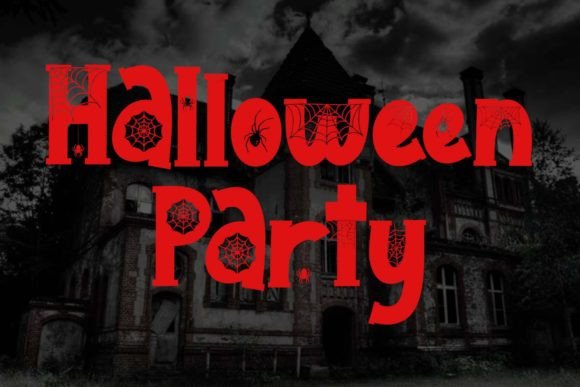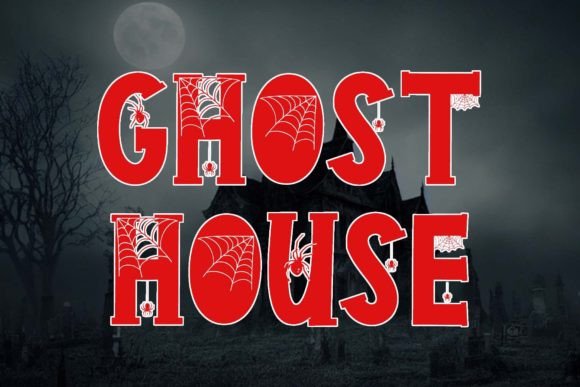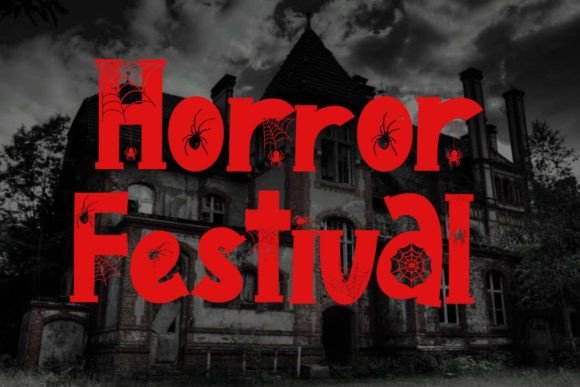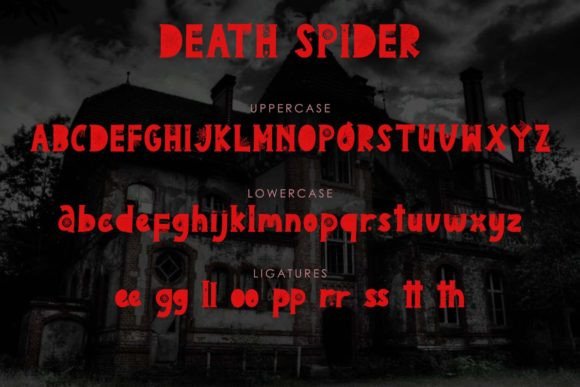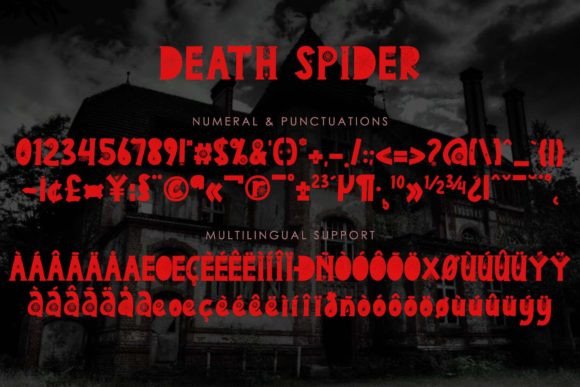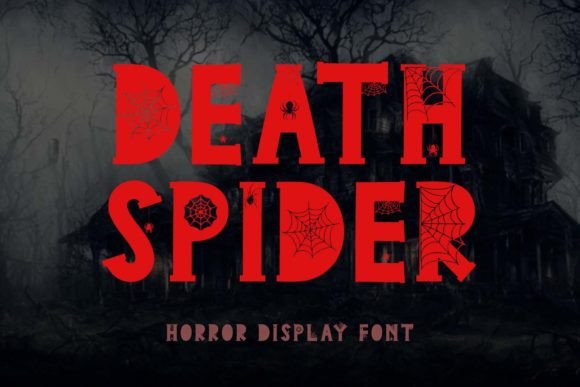
Unleash the Creepiness: Exploring the Death Spider Font
Are you looking for a font that sends shivers down the spine? Do you want to add a touch of eeriness to your designs, especially during the Halloween season? Look no further than the Death Spider Font, a spooky typeface that will make your text look like it’s covered in spider webs.
What is Death Spider Font?
Death Spider is a unique and creepy font designed to resemble letters covered in spider webs. The style is eerie, making it perfect for Halloween-themed designs, creepy crafts, and any project that requires a spooky touch. This font is sure to grab attention and leave a lasting impression on your audience.
Key Features of Death Spider Font
- Unique Webbed Design: Each letter is intricately designed to look like it’s covered in spider webs, adding a creepy texture to your text.
- Eerie and Spooky: The font’s design is eerie and perfect for creating spooky Halloween-themed designs, creepy crafts, and more.
- Highly Versatile: Death Spider Font can be used for a variety of projects, from digital designs to print materials, such as Halloween cards, posters, and invitations.
Uses of Death Spider Font
Death Spider Font is perfect for a wide range of projects, including:
- Halloween Designs: Create spooky Halloween-themed designs, such as posters, invitations, and social media graphics.
- Creepy Crafts: Add a touch of eeriness to your crafts, such as Halloween cards, gift tags, and decorations.
- Horror-themed Projects: Use the Death Spider Font to create horror-themed designs, such as movie posters, book covers, and video game graphics.
- Themed Parties: Create spooky invitations and decorations for themed parties, such as Halloween or horror-themed events.
Tips for Using Death Spider Font
To get the most out of the Death Spider Font, here are some tips:
- Use it Sparingly: Use the font sparingly to create a greater impact. Overusing the font can make your design look cluttered and overwhelming.
- Pair it with Other Fonts: Pair the Death Spider Font with other fonts to create a unique and interesting design. A simple sans-serif font can provide a nice contrast to the creepy webbed design.
- Experiment with Colors: Experiment with different colors to create a unique and eye-catching design. A dark color scheme can enhance the eerie effect of the font.
The Death Spider Font is a unique and creepy typeface that’s perfect for adding a touch of eeriness to your designs, especially during the Halloween season. With its webbed design and spooky style, this font is sure to grab attention and leave a lasting impression on your audience. Whether you’re a designer or crafter, the Death Spider Font is a great addition to your font collection.